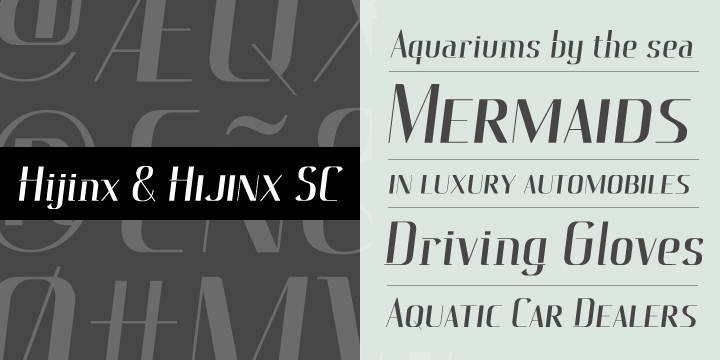
Hijinx
from CV Type
Designed by: Galen Lawson
Designed when: 2009
Design owned by: CV Type
Hijinx
Hijinx is a sleek and delicate headline face with high contrast strokes and hairline serifs that adds drama and movement to any layout.
Includes extensive glyphs and old style numbers in the small caps.